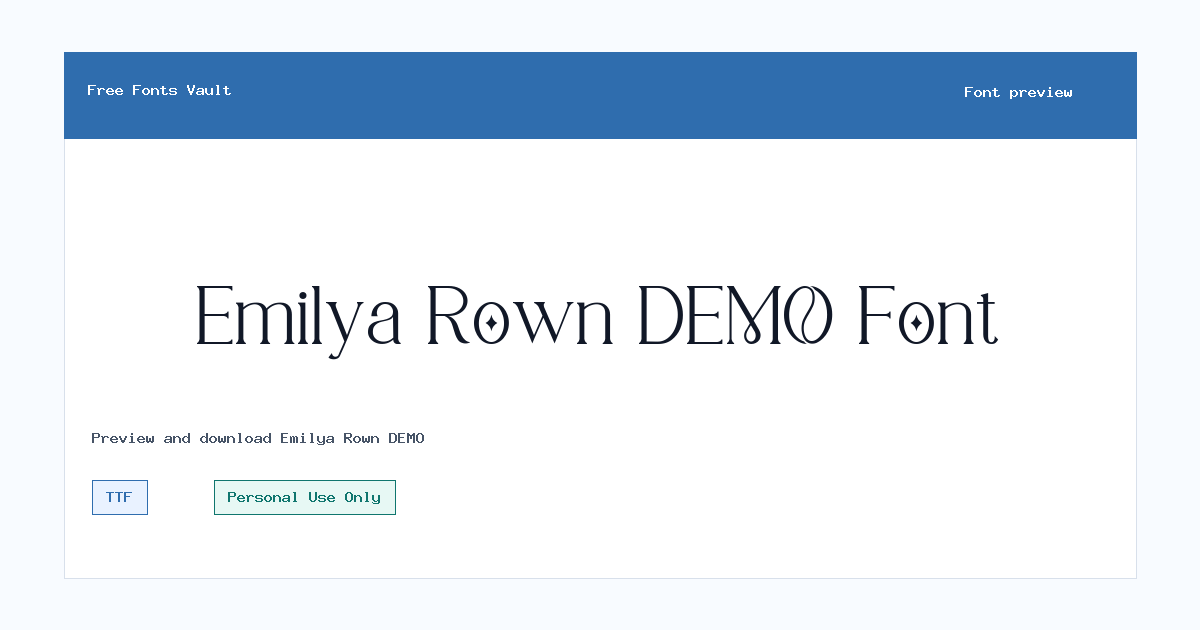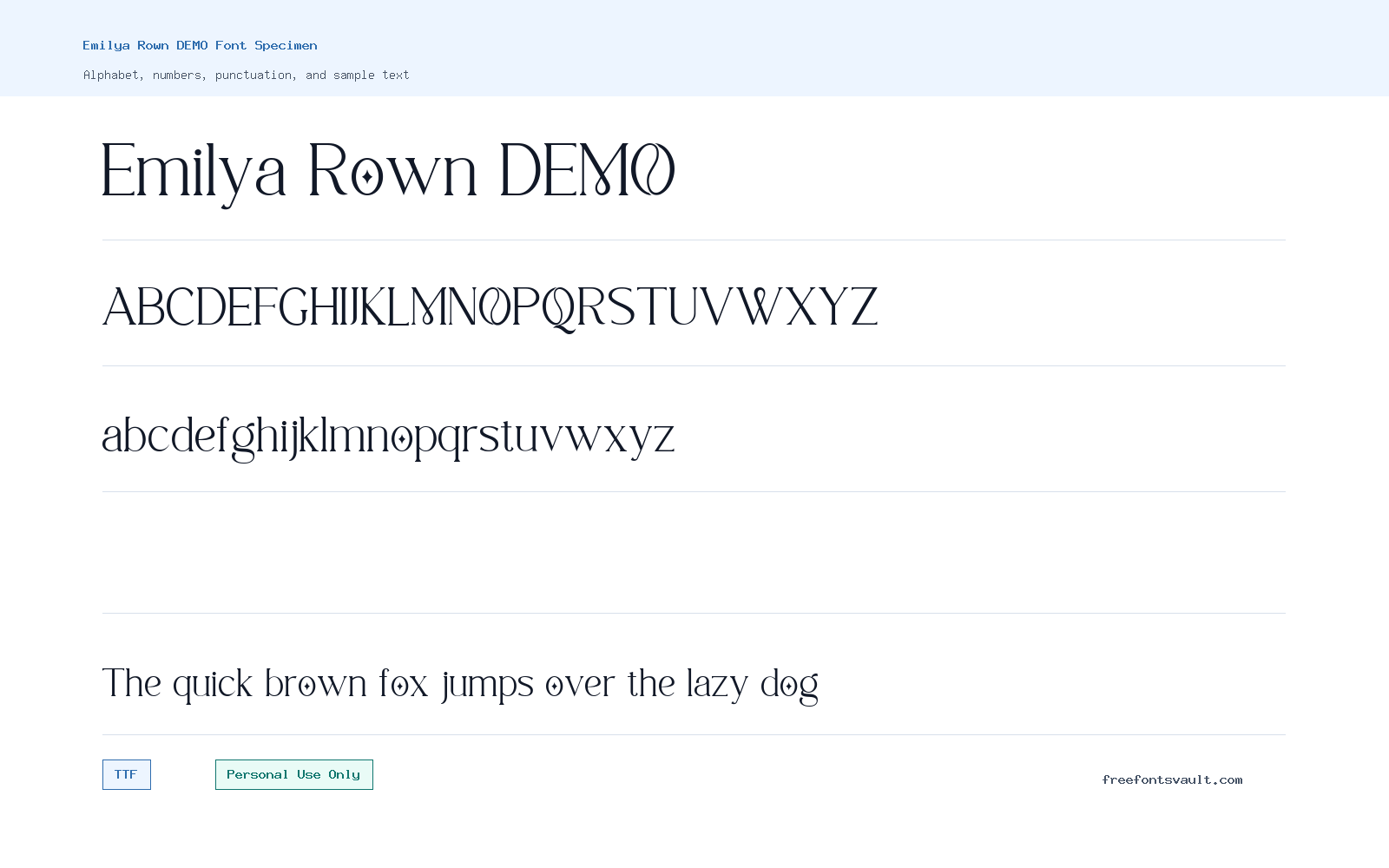
Emilya Rown DEMO
Emilya Rown DEMO font preview showing the family name
Emilya Rown DEMO Font
Emilya Rown DEMO font specimen showing alphabet, numbers, and sample text
Emilya Rown DEMO font.
Emilya Rown DEMO is a serif font from Say Studio with a demo license for personal use. It is a good font to test when you want a refined serif look for short text, display lines, and decorative typography experiments.
About Emilya Rown DEMO
Emilya Rown DEMO is best approached as a display-friendly serif rather than a plain reading font. Use the preview tool to check how its letter shapes handle names, titles, initials, and short phrases. Serif fonts can bring a more polished tone to typography, but the right fit depends on spacing, word length, and the size you plan to use. Try both uppercase and lowercase text before downloading, especially if your design needs a clear brand name, invitation heading, or social graphic.
• Serif demo font suitable for testing polished short-form typography
• Personal invitation drafts, quote graphics, mood boards, and title tests
• Previewing serif headings before choosing a licensed font for a finished project
Test the font at the exact size you need before using it in a design. It may work better for headings, names, and decorative lines than for long paragraphs. Pair it with a simple sans serif or a quiet text serif so the layout stays readable and the display text remains the focus.
What kind of projects is this font best for?
It is best for personal design tests, short headings, invitations, quote images, and style mockups. For long body text, preview several lines first to make sure spacing and readability hold up.